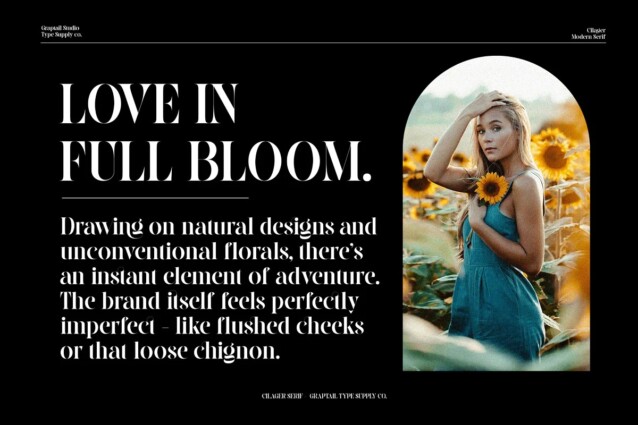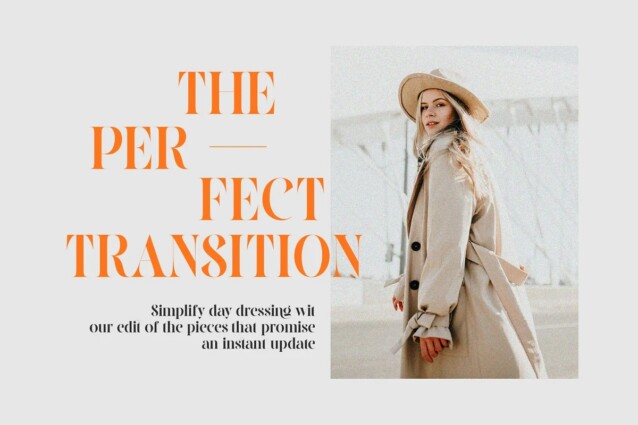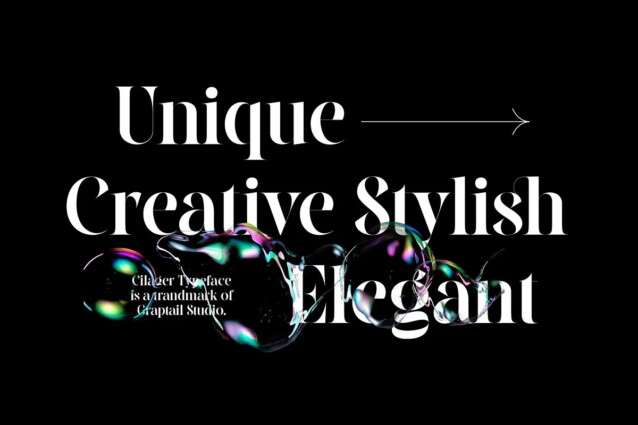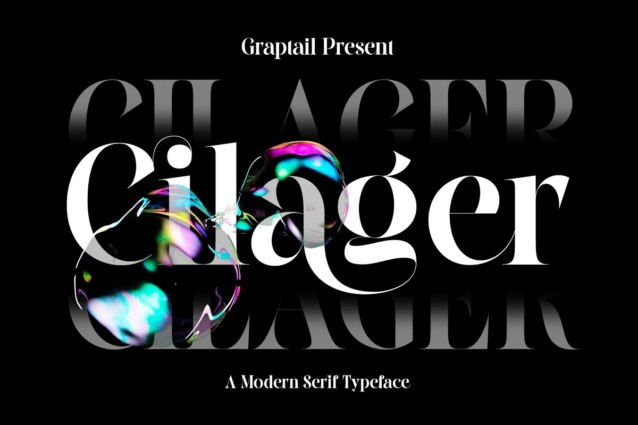
Cilager Font
Cilager Font is a distinctive serif font inspired by unusual & organic shapes. With 26 Ligatures which are included, it is very helpful in creating the title of each of your project such as Logos, greeting cards, quotes, posters, branding, business cards, postcards, movie titles, blog headers, art quotes, typography, magazines and more.